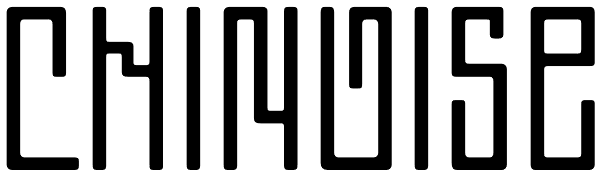
Chinoise
Chinoise, a CastleType original, is based on hand lettering that is reminiscent of a style of ancient Chinese square-cut ideograms (perhaps cut in wood), and therefore the suggestive name "Chinoise" for this new design. There are alternate forms for...